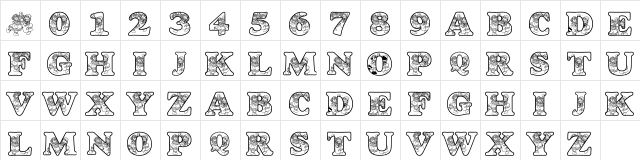
LMS Dancing Rag Dolls Regular
Design Context for LMS Dancing Rag Dolls
LMS Dancing Rag Dolls is a composed and adaptable typeface that performs quietly and consistently across a wide range of design contexts.